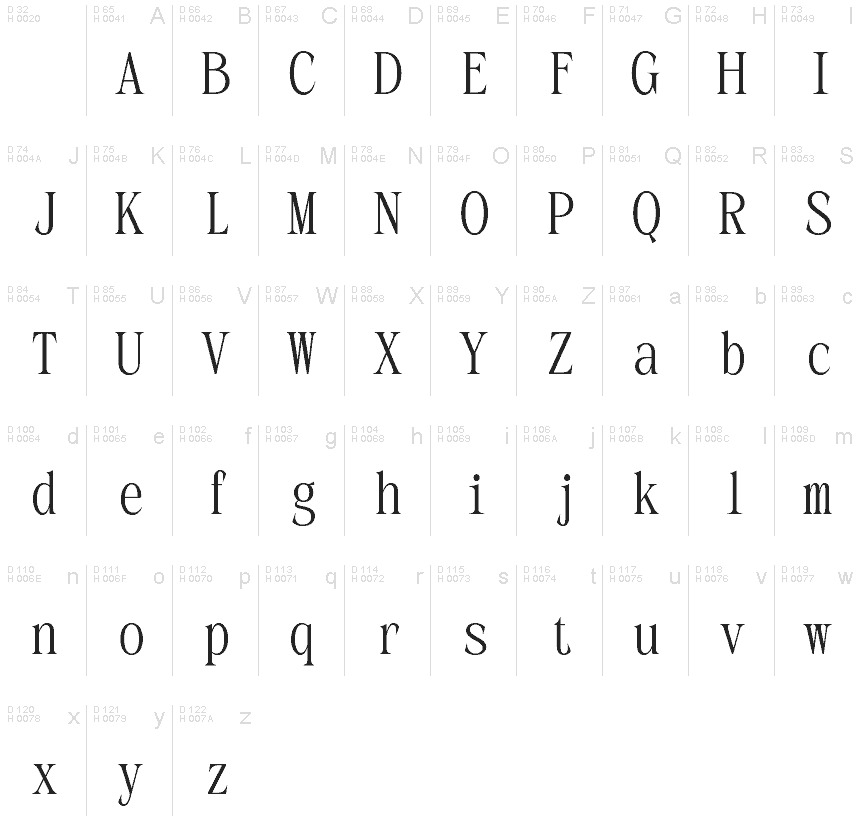
CS Gleda Mono Regular Demo
CS Gleda Mono font by Craft Supply Co. is a free mono-serif font with soft features and a formality-filled presentation that reflects its inspiration of classic typography from the 80s. The elegant typeface has condensed characters which grants it an almost geometrical nature that can be felt through the size and angles of each individual letter.
Establish elegance on your posters, sale announcements, website headers, blog posts, articles, books/blog covers, greeting cards, packaging designs apps typography projects and general formal printed or published content. Pair the mono style with another Gleda style to create differentiations while still preserving coherence. Each copy of this font includes lowercase/uppercase letters with numbers and punctuation marks.